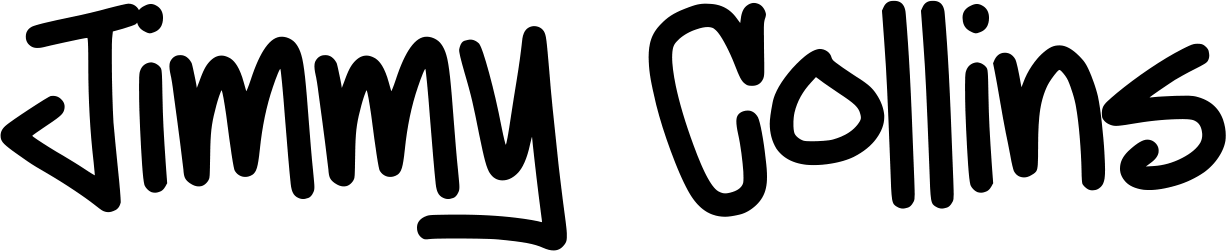
Jimmy Collins Font
Jimmy Collins is a script font with graffiti style, all its characters are skewed and convey a sense of grunge, messy, and irregular, so it can easily attract the attention of teenage audiences and engage them with your content. Jimmy Collins is ideal for designing logos, brochures, and video game posters.